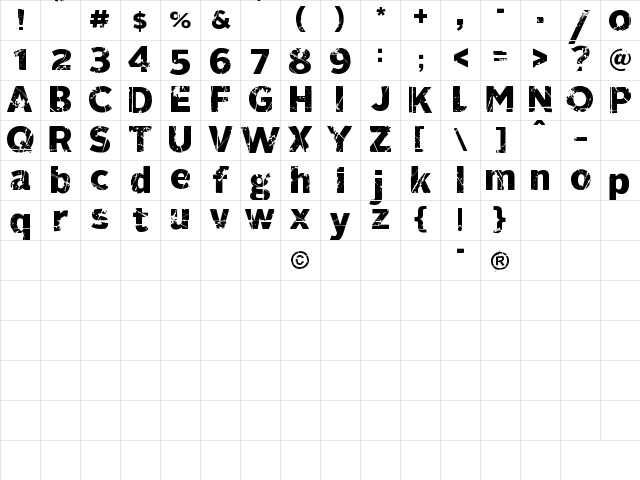
Complete 321Perfect Regular glyph index. Displaying only characters natively supported by 321Perfect Regular font.
321Perfect is a composed and adaptable typeface that performs quietly and consistently across a wide range of design contexts.
Who designed the 321Perfect Regular font?
This font was published by Kenny Redman. Check the technical specs section for copyright and designer details.